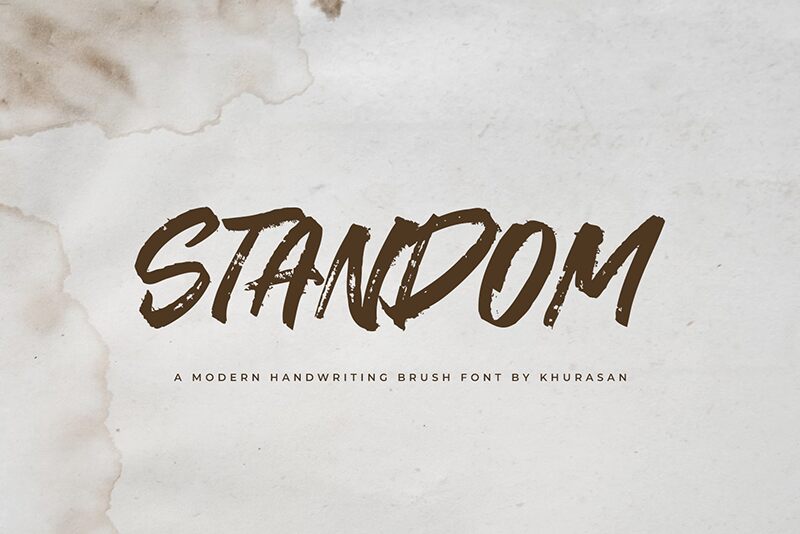
Standom
Standom font, by Khurasan, is a bold brush script font with great expressiveness. The font carries clear artistic flair thanks to rough strokes and high contrast between thick and thin sections. There’s both casual elegance and amazing energy within Standom, a modern-feeling typeface addition.
Use this free brush font for your movie posters, branding projects like logos or packaging design, apparel design like T-shirts or sweatshirts, CD cover designs, book covers as well as typography for magazines. Other projects can also include social media posts for advertising, shop signage designing, etc.